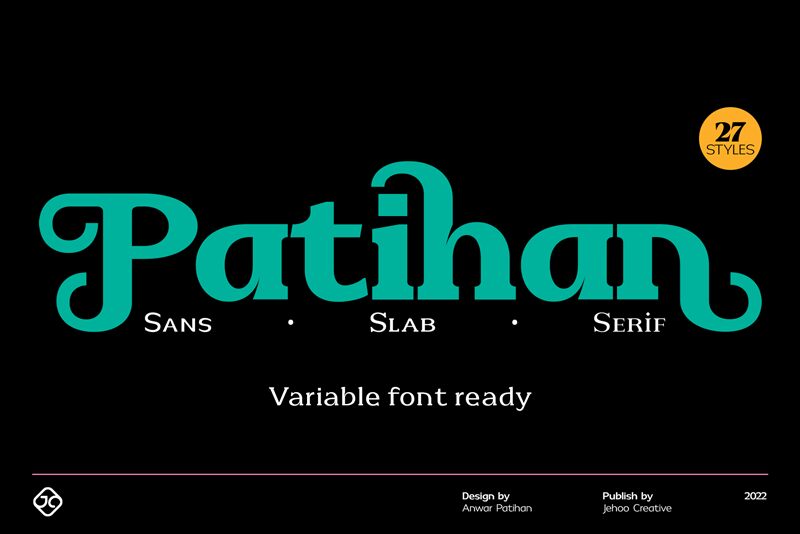
Patihan Serif Bold, a captivating typographic creation from the skilled hands of Jehoo Creative, exudes a timeless elegance with its refined serifs and impactful strokes. Evoking a sense of sophistication and grandeur, this bold font commands attention, making it a compelling choice for projects that require a strong, visually striking presence.
The Patihan Serif Bold font's versatility allows it to seamlessly integrate into a wide range of design contexts, from high-end editorial layouts to powerful branding initiatives. Its robust, yet refined character lends itself particularly well to headline text, titles, and other prominent design elements, ensuring a strong, memorable impact on the viewer.